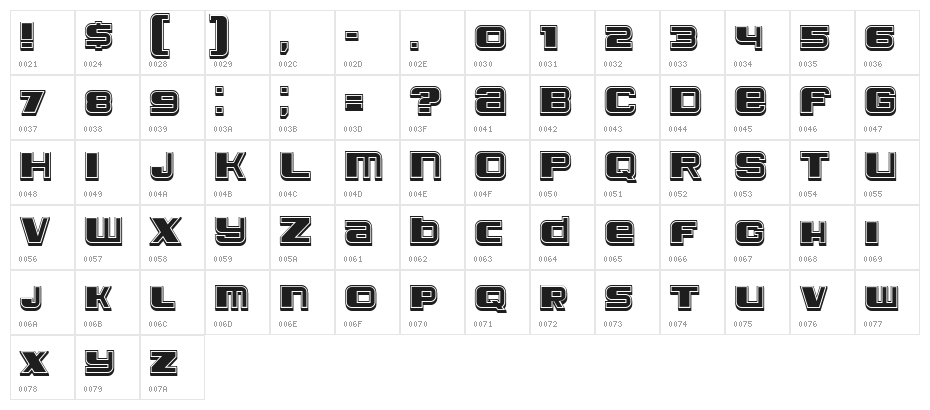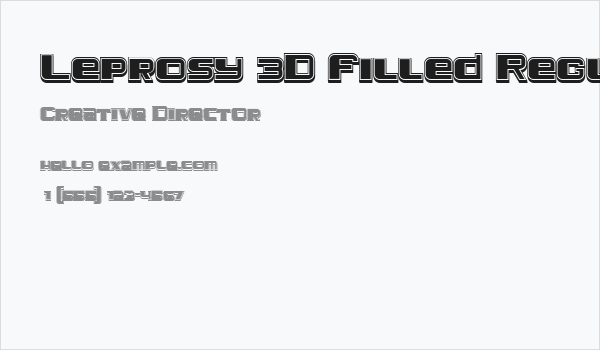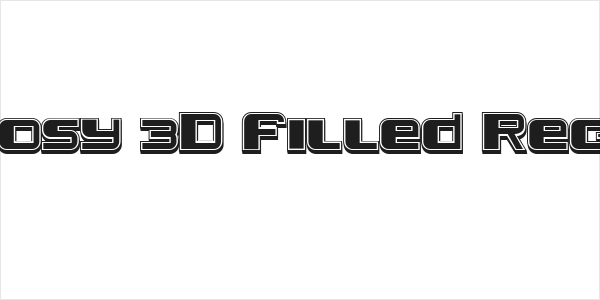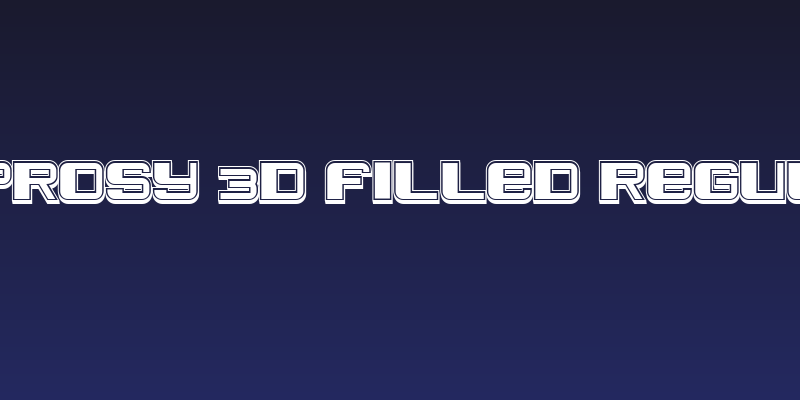
Leprosy 3D Filled Regular Font
Leprosy 3D Filled Regular Description
This font features a bold, three-dimensional appearance with a filled interior and a thick outline that gives it a striking, impactful look. The characters are uppercase and lowercase alphabets, numerals, and a selection of special characters. Each letter is designed with a consistent width and height, providing a uniform and cohesive look across the entire set. The style is modern and geometric, with a slight retro feel due to its blocky, robust structure. The font's design is ideal for creating eye-catching headlines or titles that need to stand out. Its boldness and 3D effect make it suitable for digital graphics, posters, and any project that requires a strong visual impact.
| Proposed Projects | Ideal for digital graphics, posters, video game titles, and any project needing a strong visual impact. |